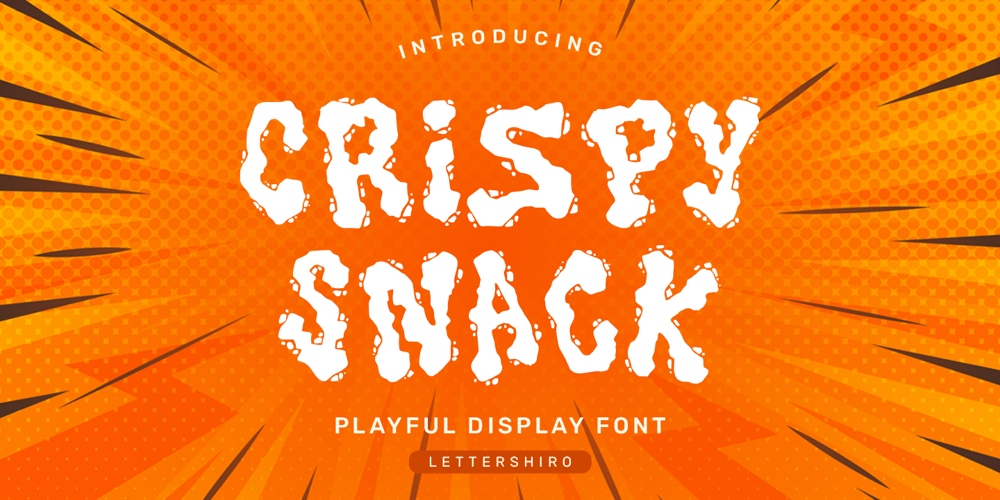
Crispy Snack
Crispy Snack font
Crispy Snack Font Family was designed by Muhammad Sirojuddin and published by Lettersiro. Crispy Snack contains 1 styles and family package options. Introducing Crispy Snack – a fun and playful display font designed to add a burst of energy to your designs. Perfect for snack packaging, kids’ movie posters, and any food-related projects, this font combines a bold, whimsical style with a touch of quirky charm. Its unique, eye-catching characters will make your designs stand out and bring a sense of joy and excitement to your audience.